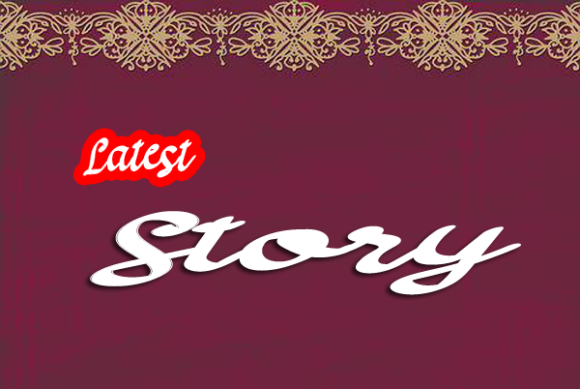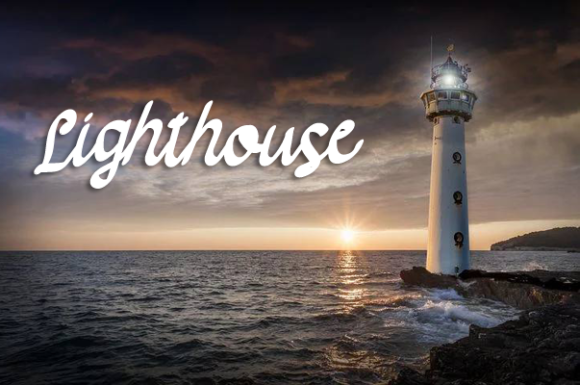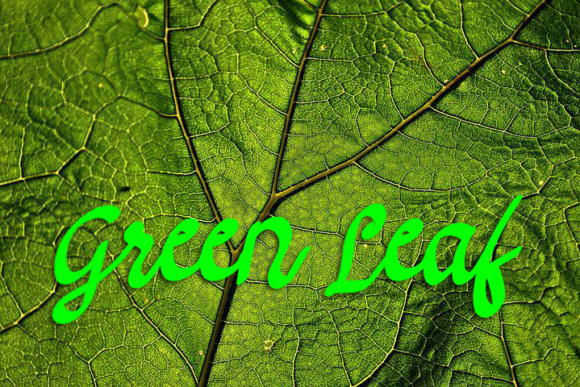
Highlight Font
About Highlight Font
Highlight is a chic and cursive script font. It has a classy, elegant and modern look that can be used for logos, branding, invitations, stationery, wedding designs, social media posts, and much more!